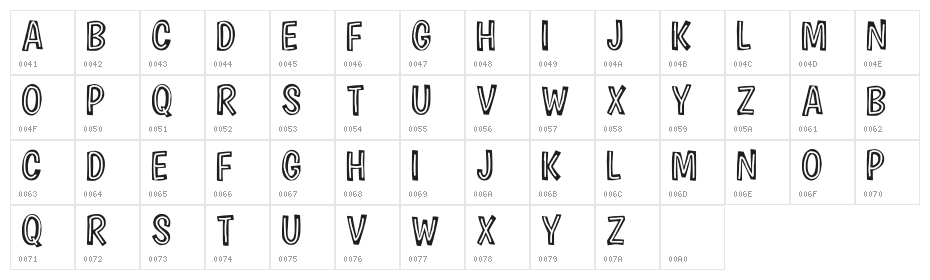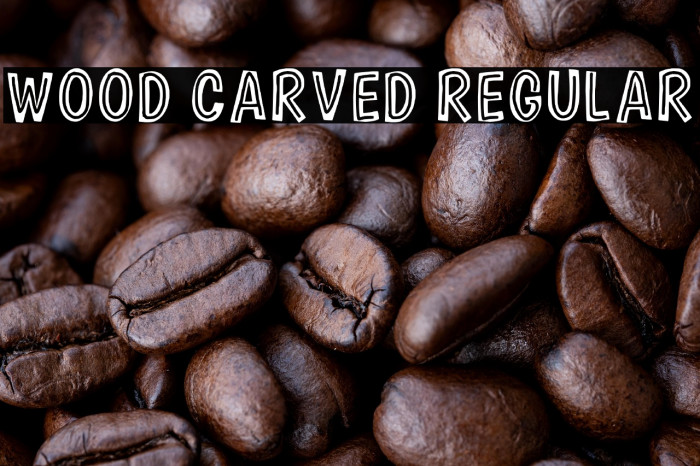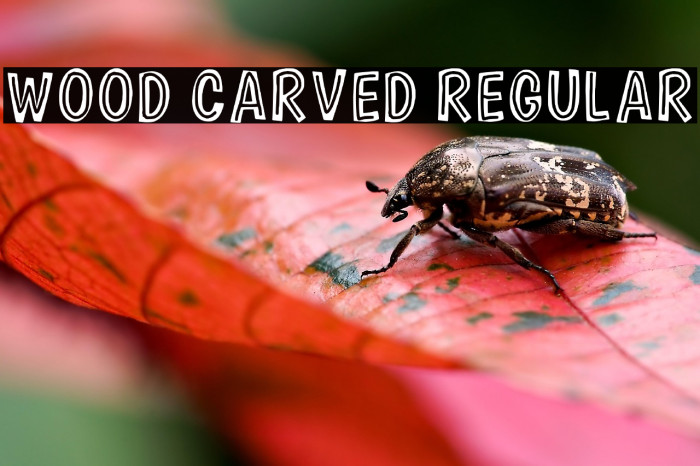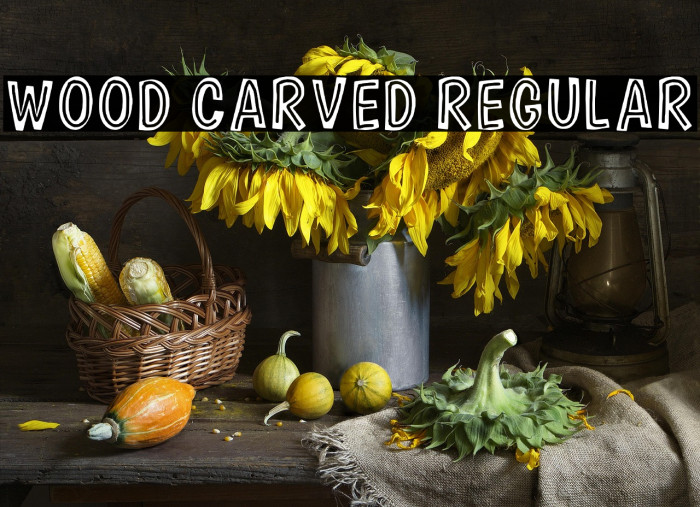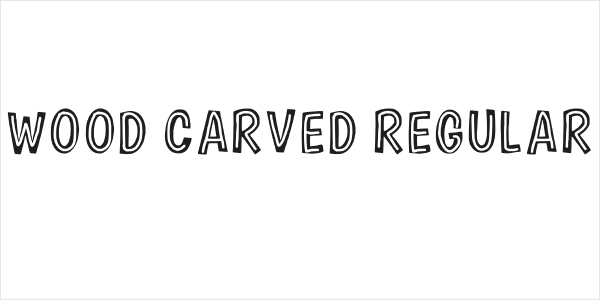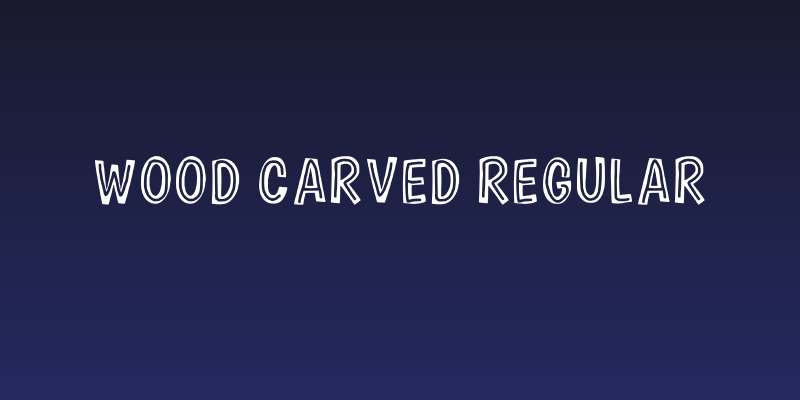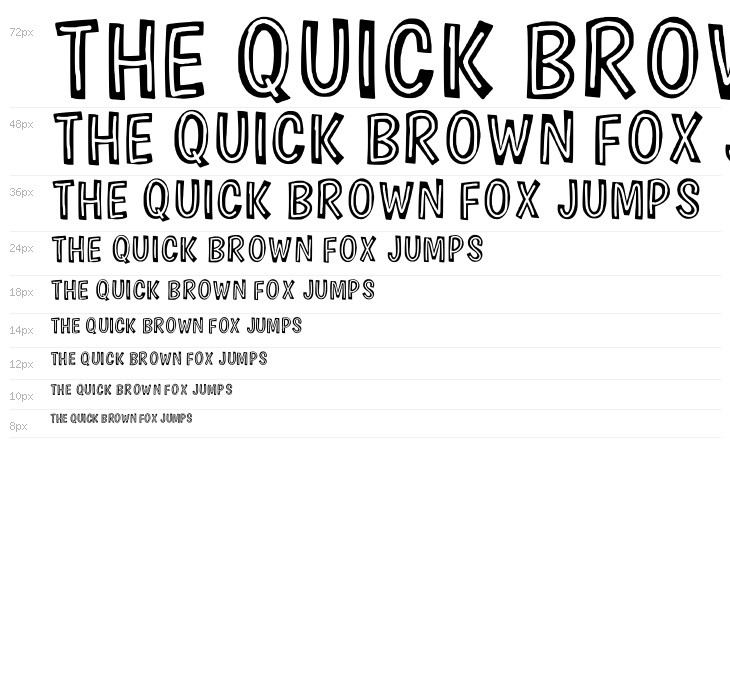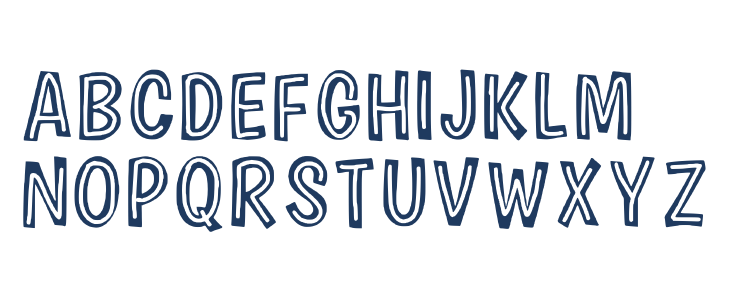
Wood Carved Regular Font
Wood Carved Regular Description
This font features a bold and playful design, reminiscent of hand-carved wooden letters. Each character is outlined, creating a shadow effect that adds depth and dimension. The strokes are thick and uniform, giving the font a sturdy and robust appearance. The overall style is casual and friendly, making it suitable for projects that require a touch of whimsy and creativity. The uppercase letters are prominently displayed, with a slight irregularity that enhances the handcrafted feel. This font is ideal for eye-catching headlines, posters, and creative branding projects where a unique and engaging typeface is desired.
| Overall Style | Playful, Handcrafted |
| Proposed Projects | Perfect for headlines, posters, branding, and creative designs. |